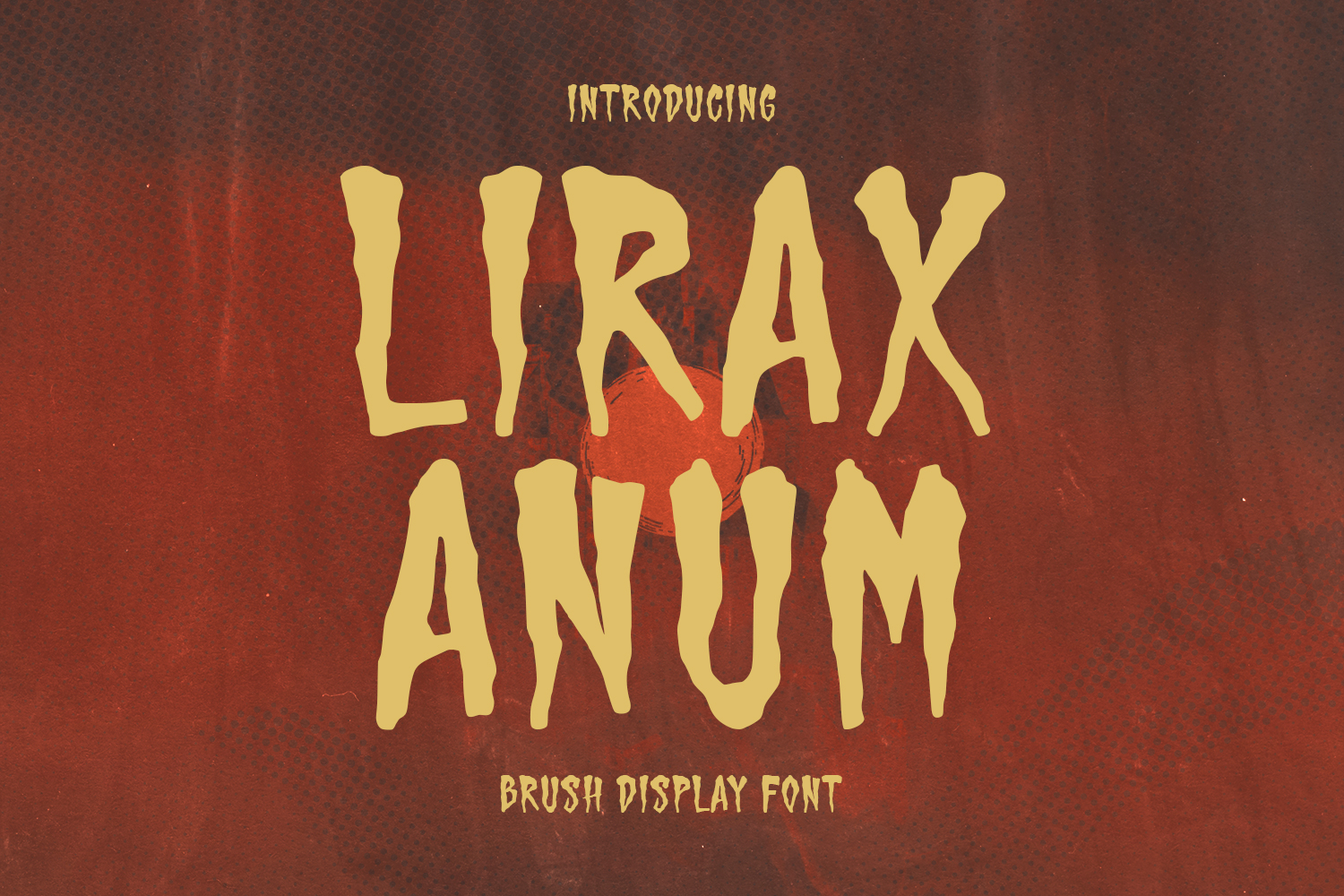
Unleash the shadows with Lirax Anum, a bold and terrifying brush display font designed to bring your darkest concepts to life. This font features rugged, hand-painted strokes and jagged edges, capturing the raw, unsettling energy of classic horror, gritty pulp fiction, and underground metal scenes.
With its menacing texture and powerful presence, Lirax Anum is the perfect typeface for projects demanding attention and a sinister atmosphere.
The typeface is all-caps and includes comprehensive multilingual support, numbers, and punctuation, making it a versatile tool for international designers looking to inject a touch of terror into their work. Command fear and attention with Lirax Anum.
Lirax Anum